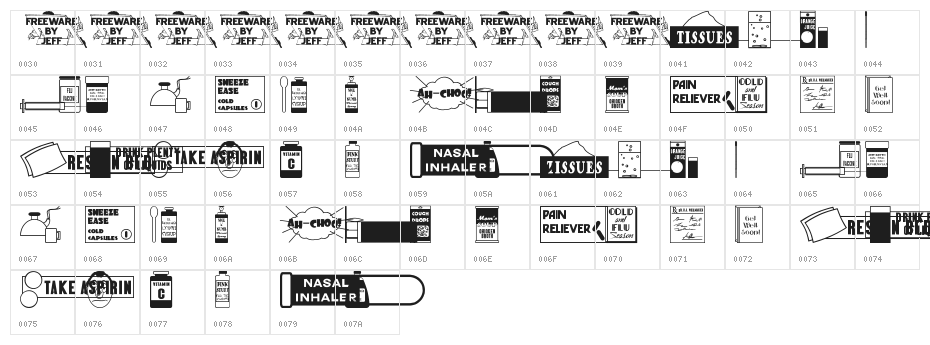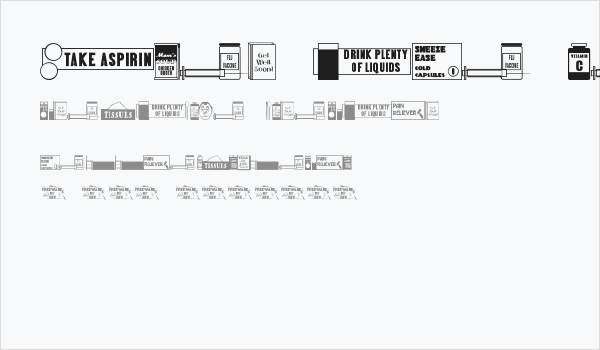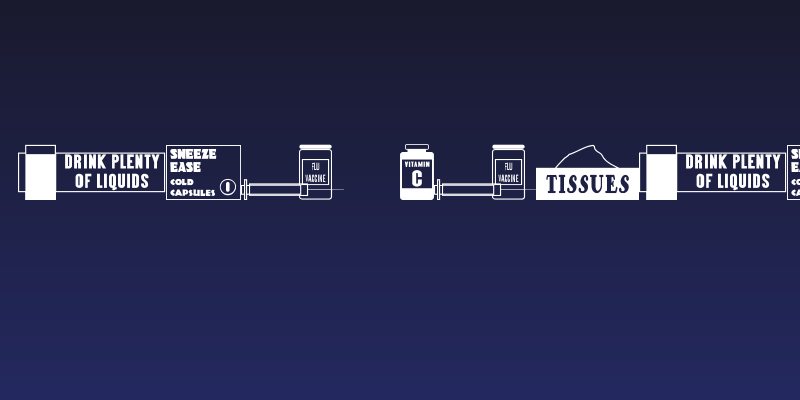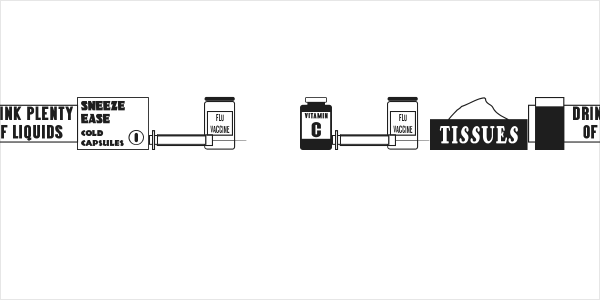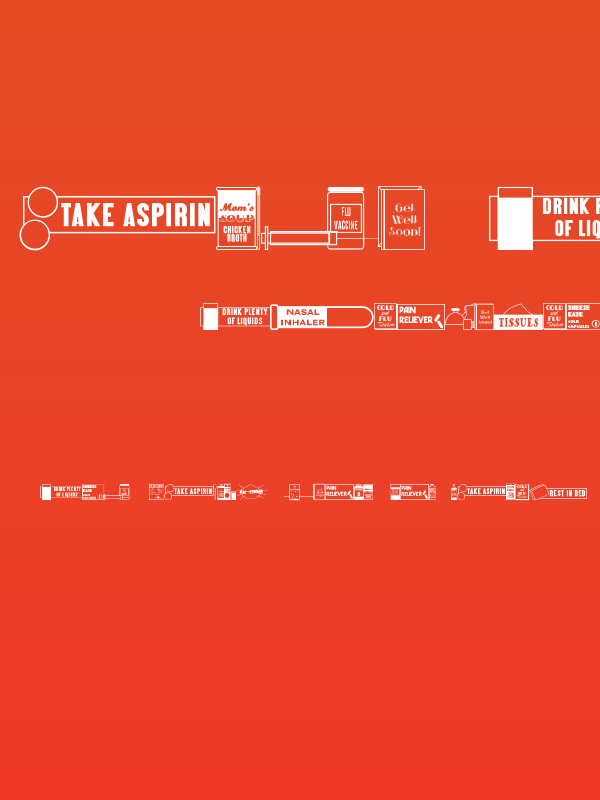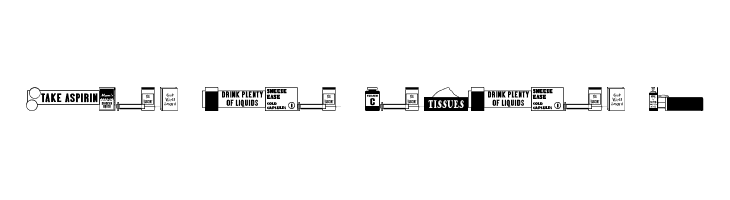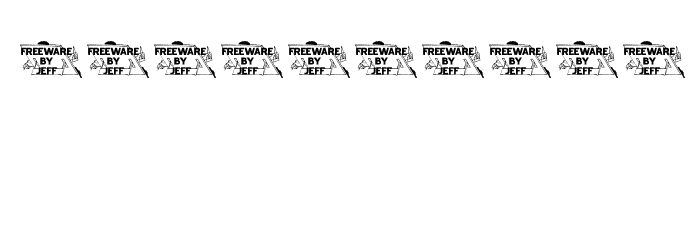
Under the Weather JL Font
This font is a playful and illustrative design that incorporates various medical and health-related imagery into its characters. Each letter and symbol is creatively crafted using elements like tissues, medicine bottles, and other cold remedies, giving it a unique and thematic appearance. The font is highly decorative and visually engaging, making it ideal for projects that require a fun and thematic touch. The characters are detailed and intricate, reflecting a whimsical approach to typography.
| Use Case | Headlines, Posters, Themed Invitations |
| Proposed Projects | Ideal for health-related posters, educational materials, themed invitations, or any project needing a whimsical and thematic font. |